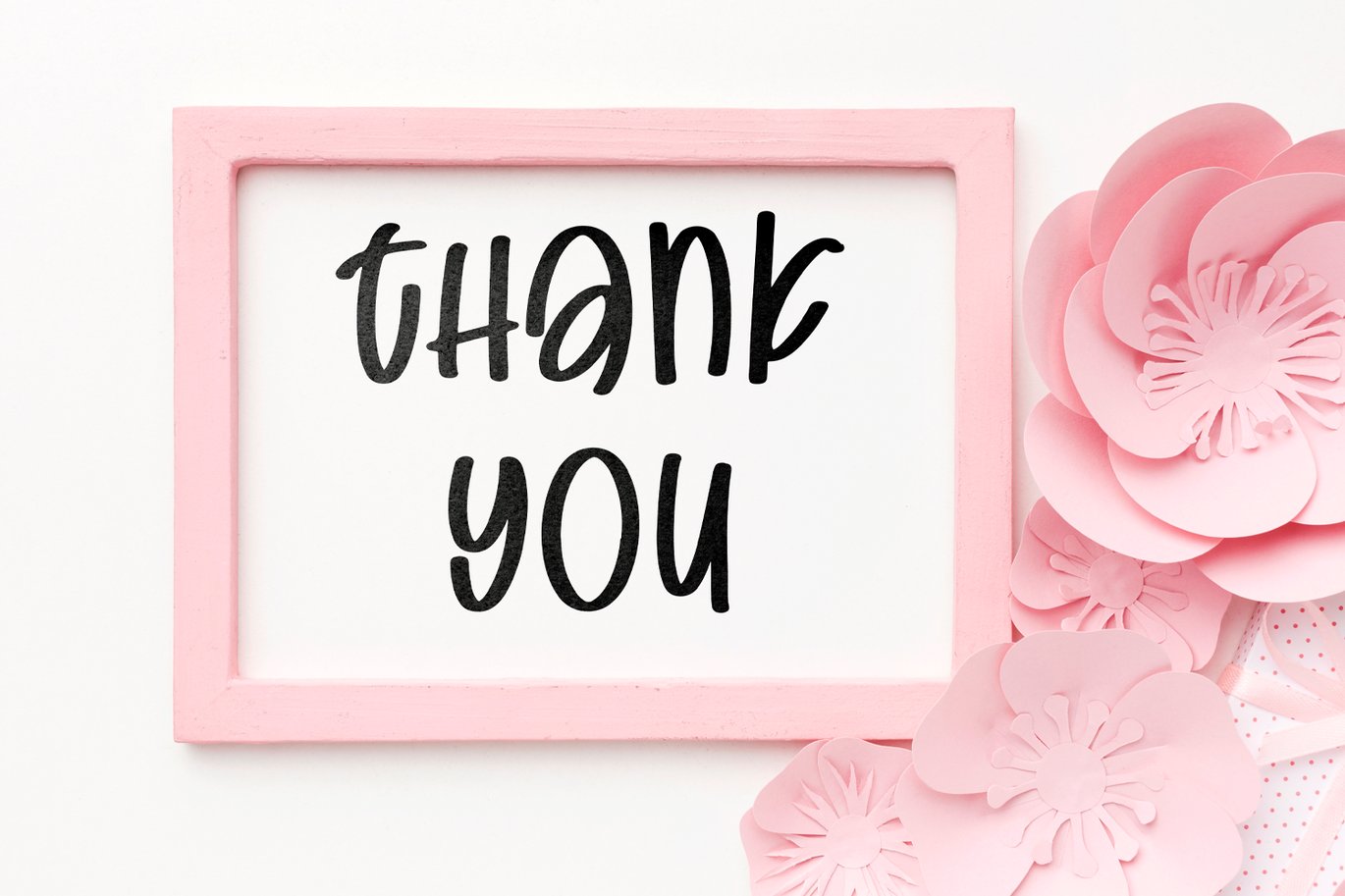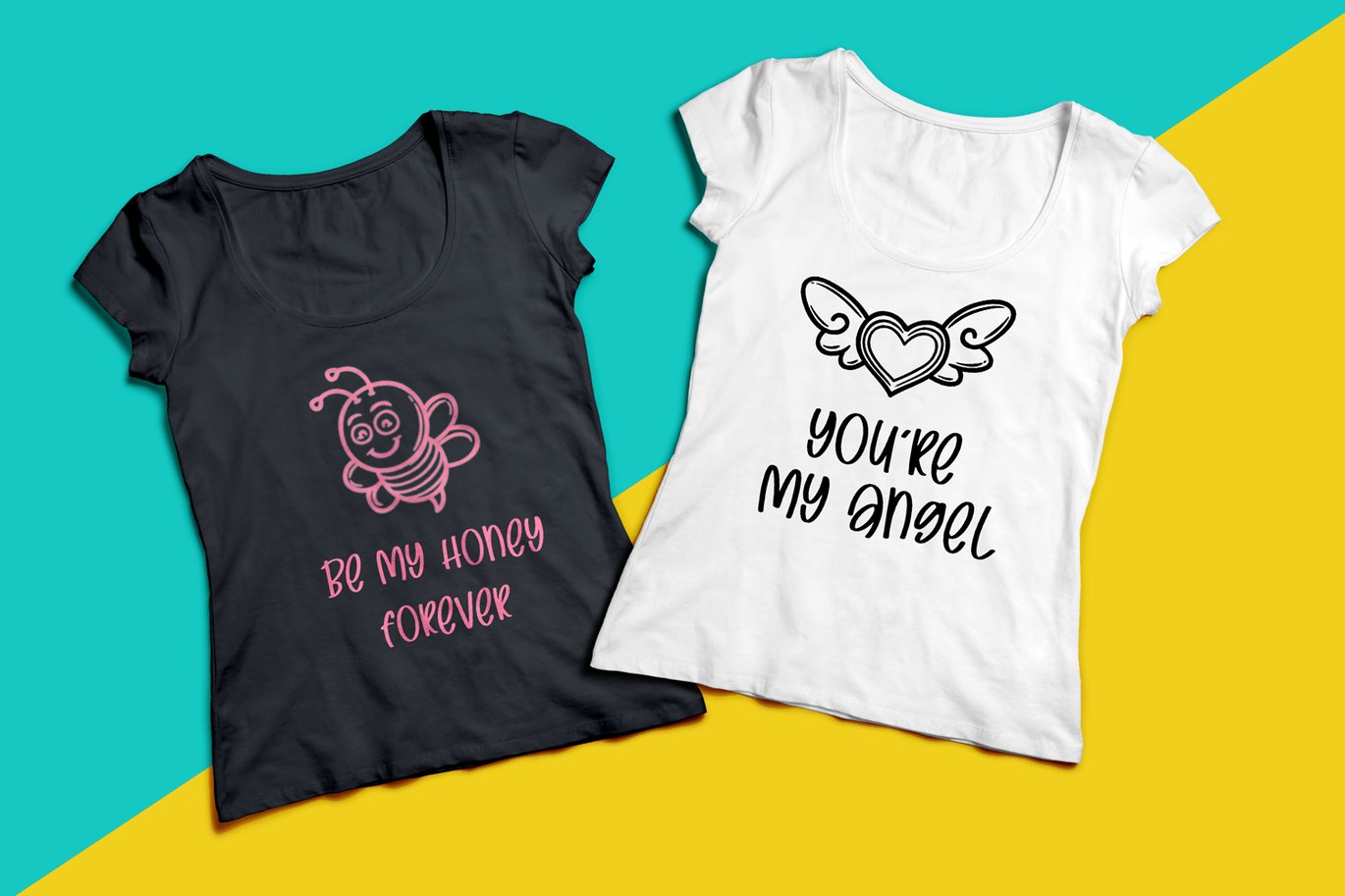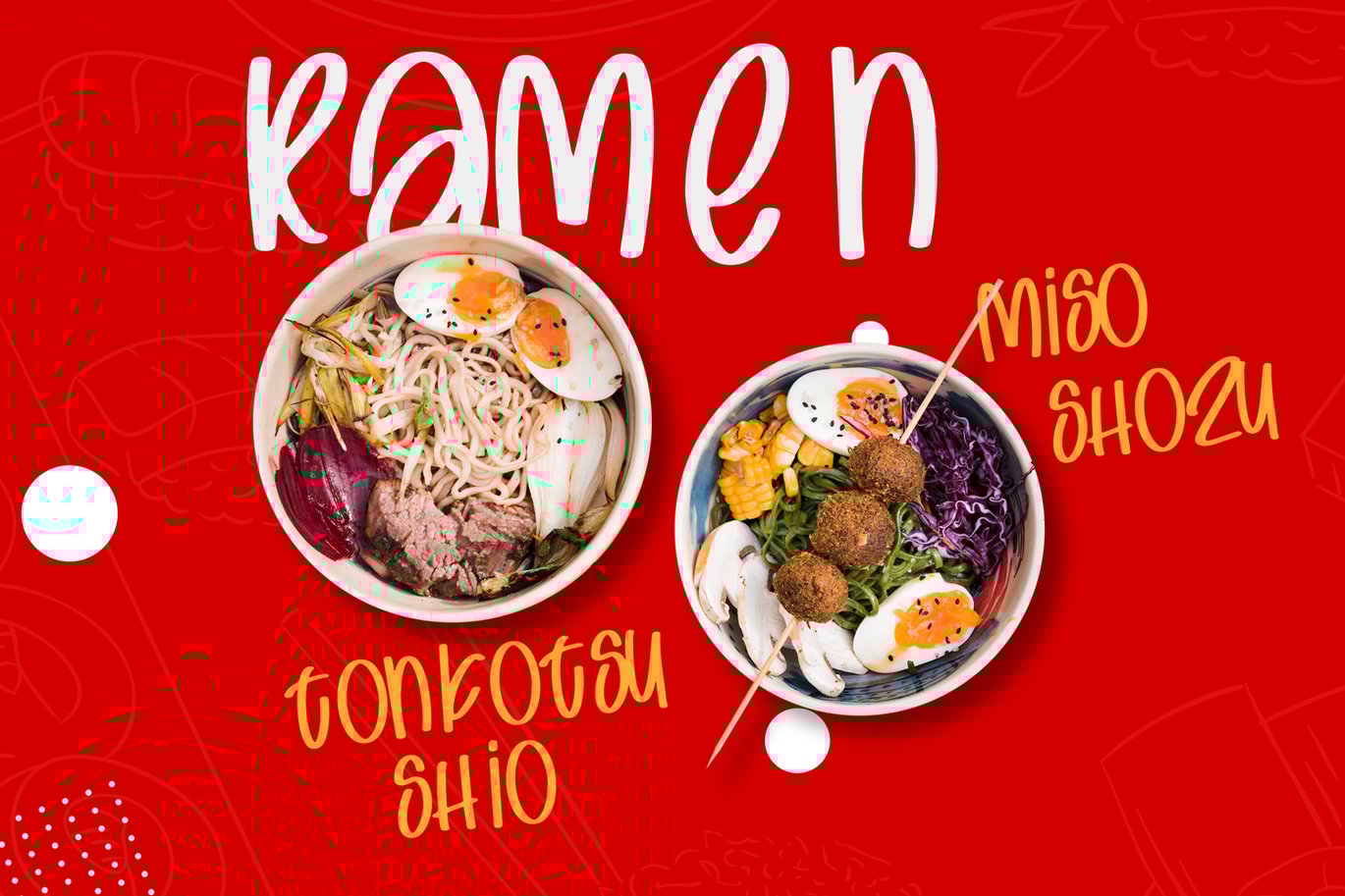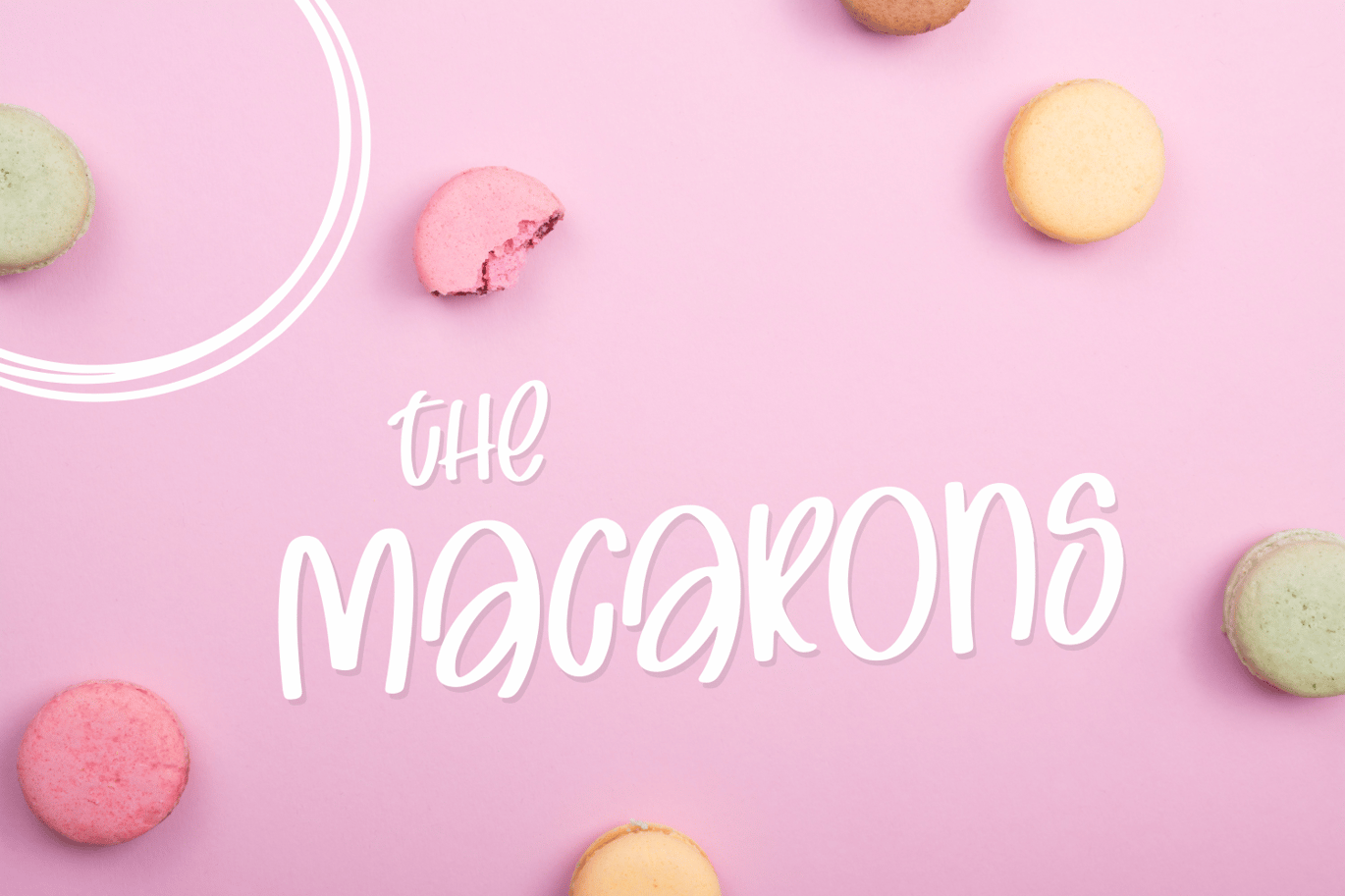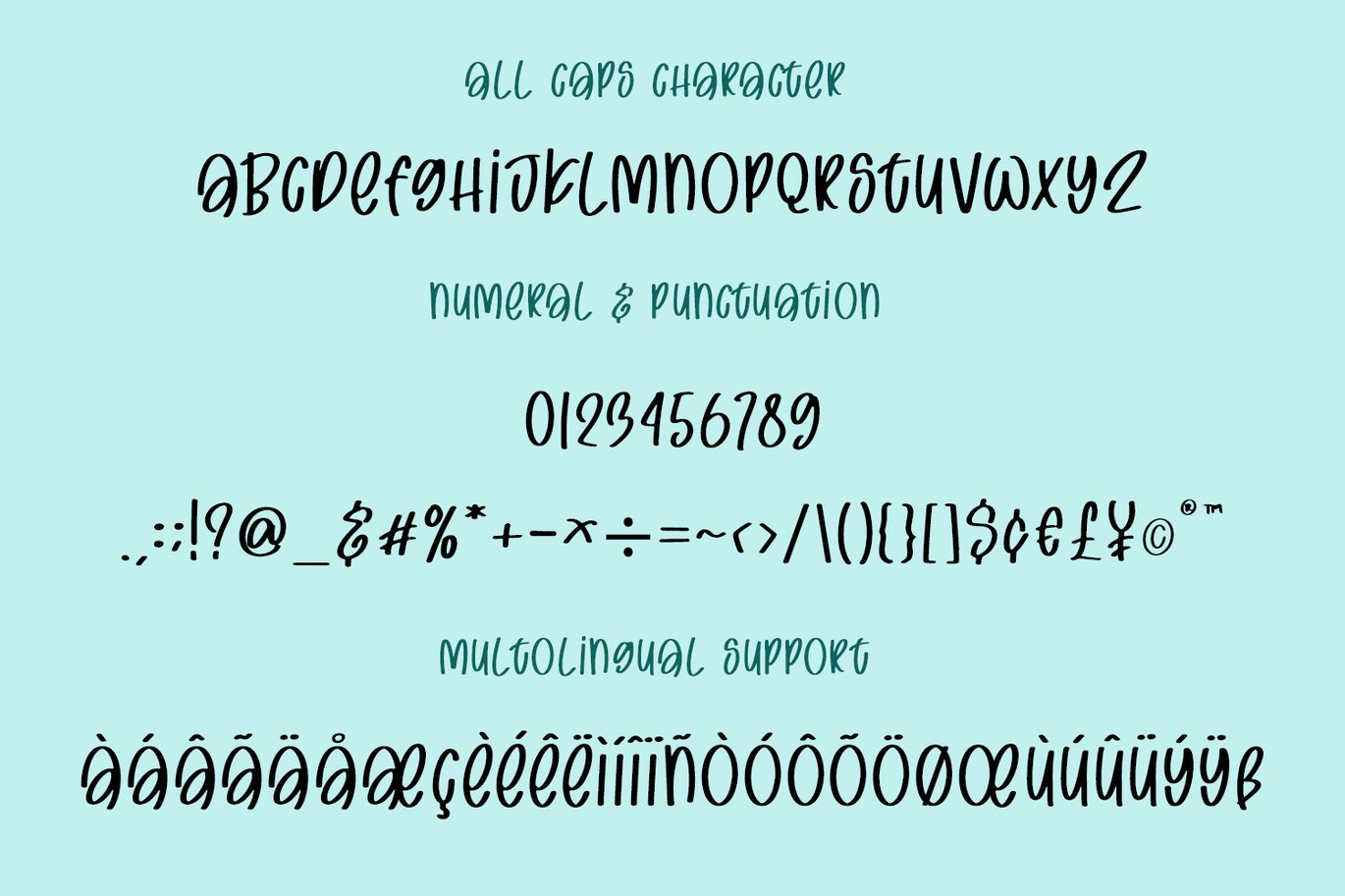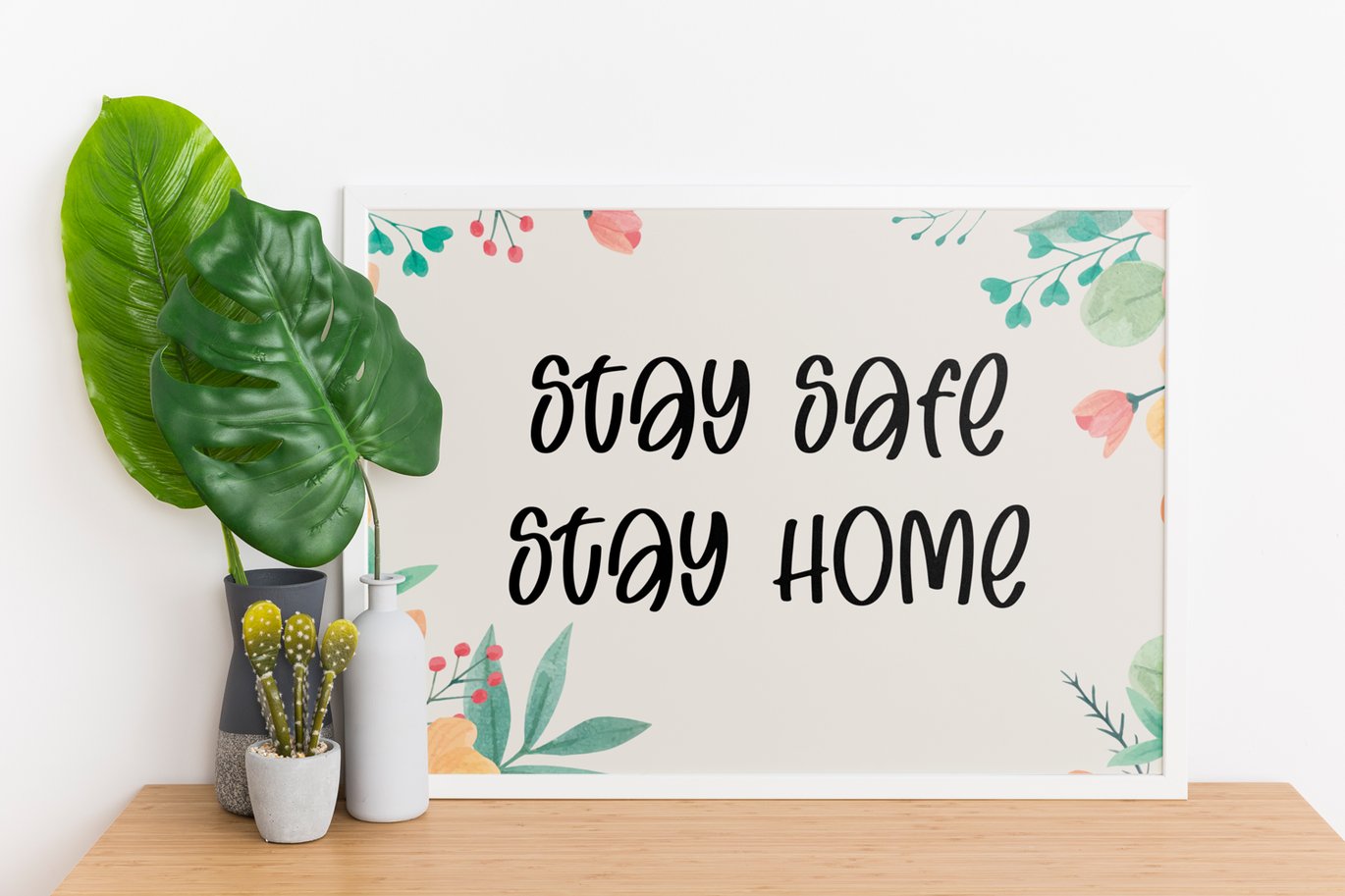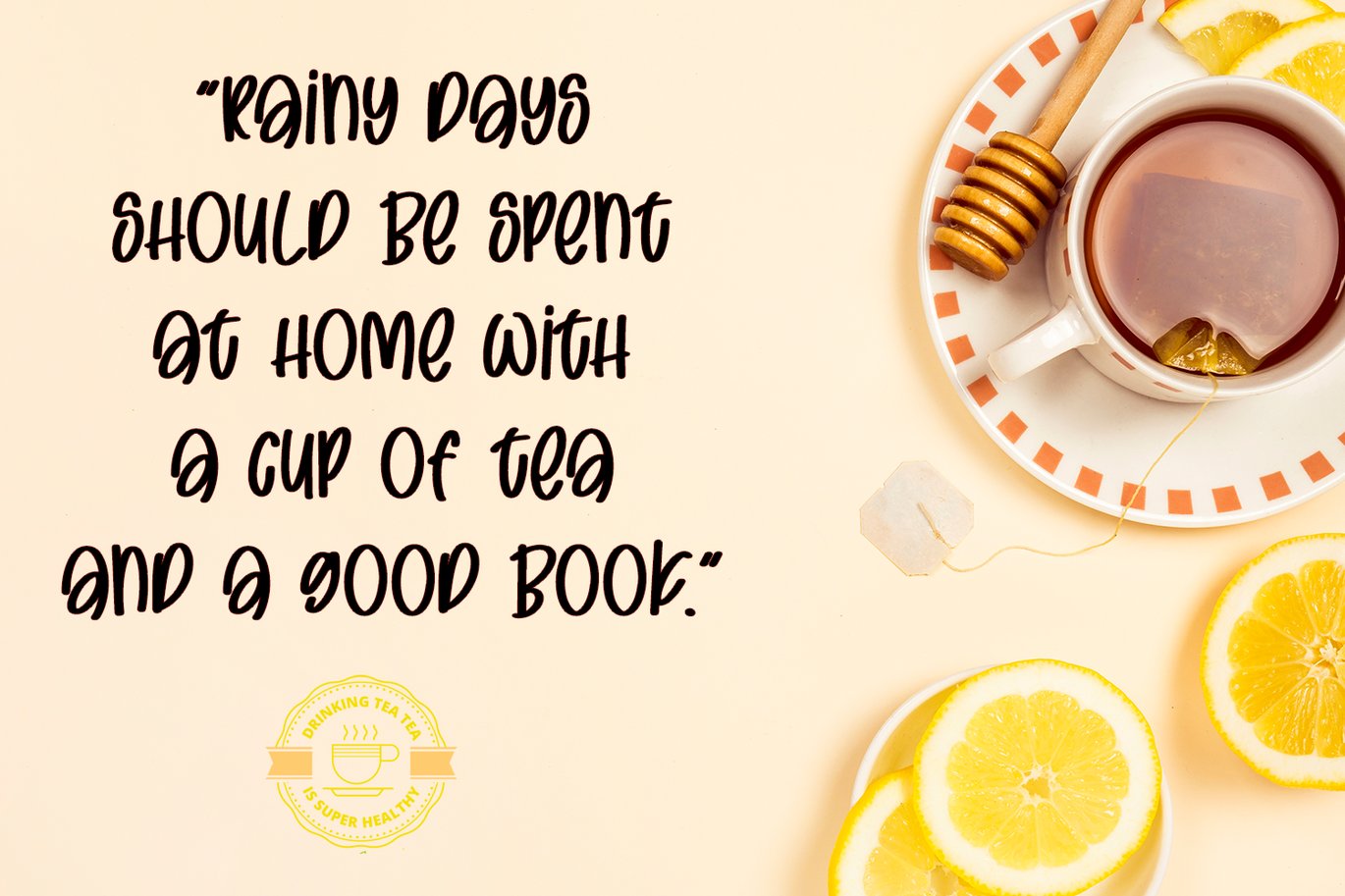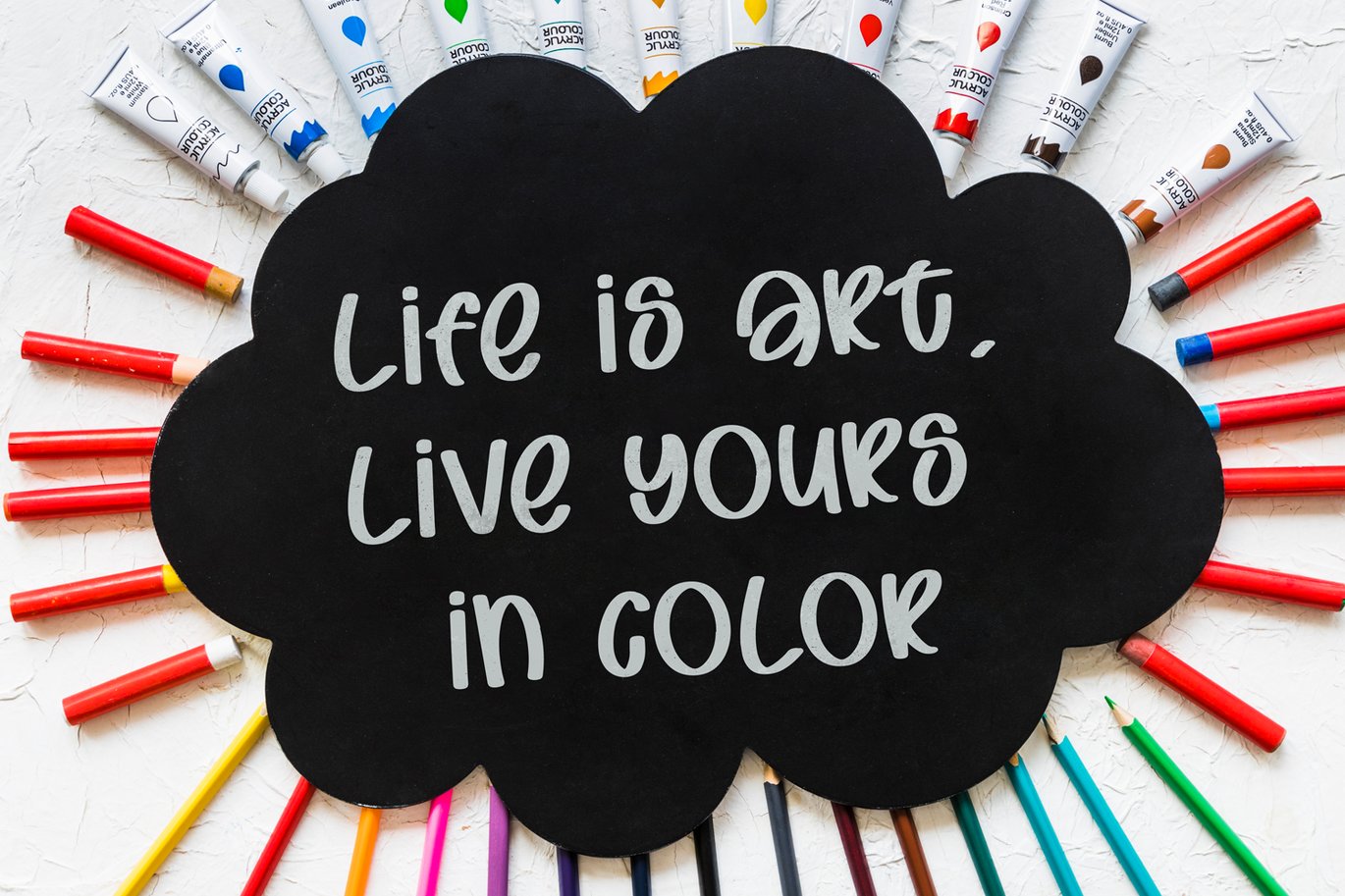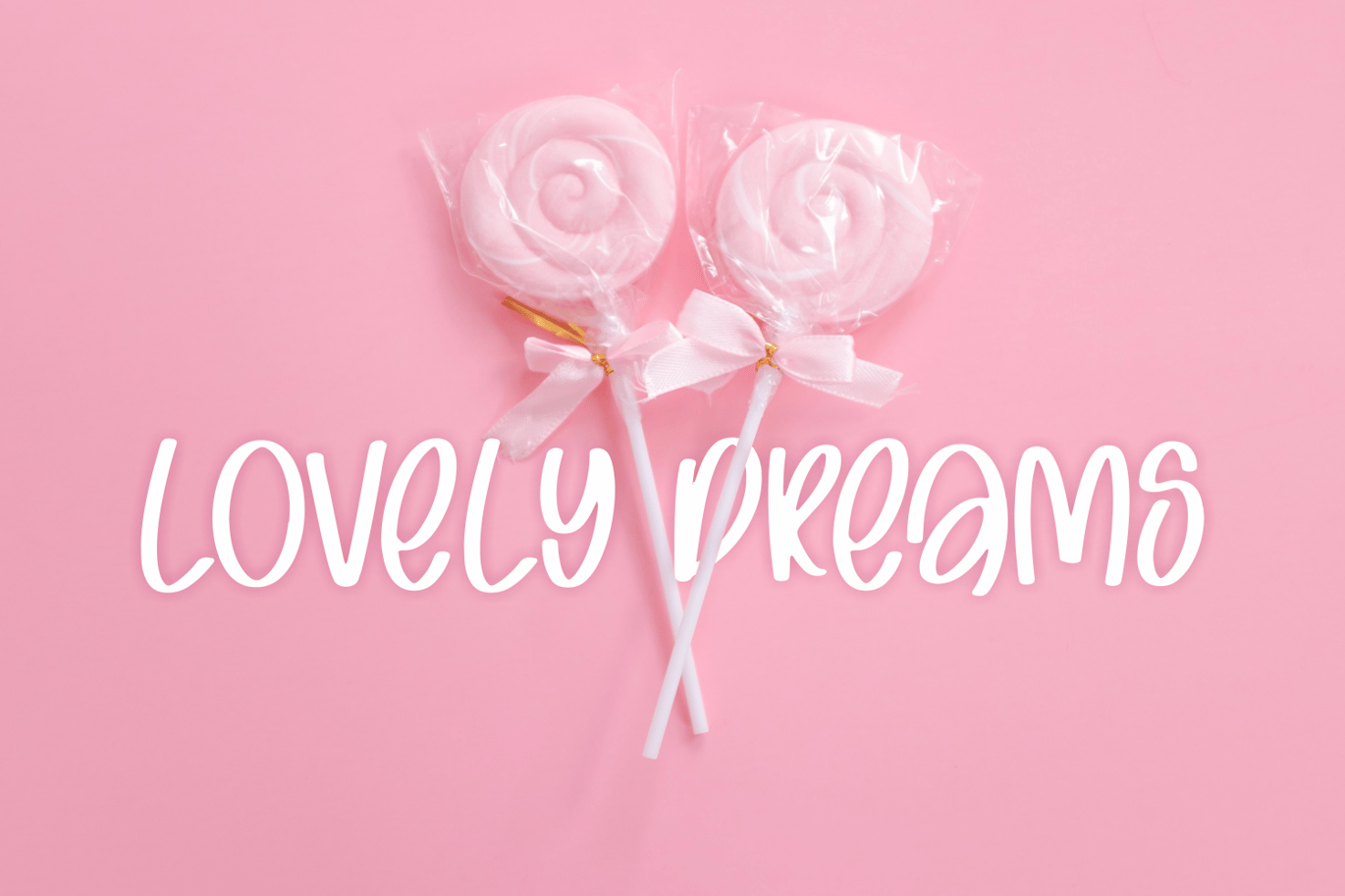
Sugar Candy – Sweet and Quirky Font
Sugar candy is a playful, sweet, and quirky font that will work perfectly for kids projects or any business that wants to appear fun and playful.
- Mix Uppercase & Lowercase
- Numerals & Punctuations (OpenType Standard)
- Multilingual characters (AÀÁÂÃÄÅÇEÈÉÊËIÌÍÎÏNÑOØÒÓÔÕÖUÙÜÚÛÝŸÆŒß)